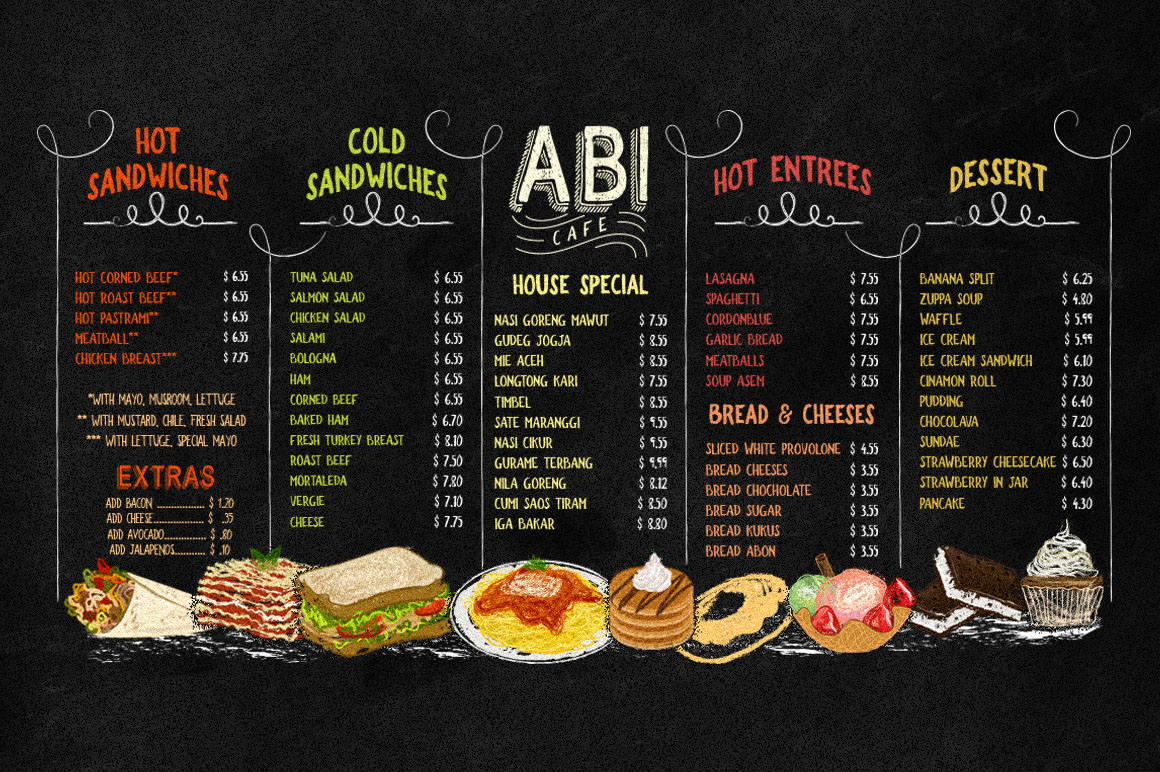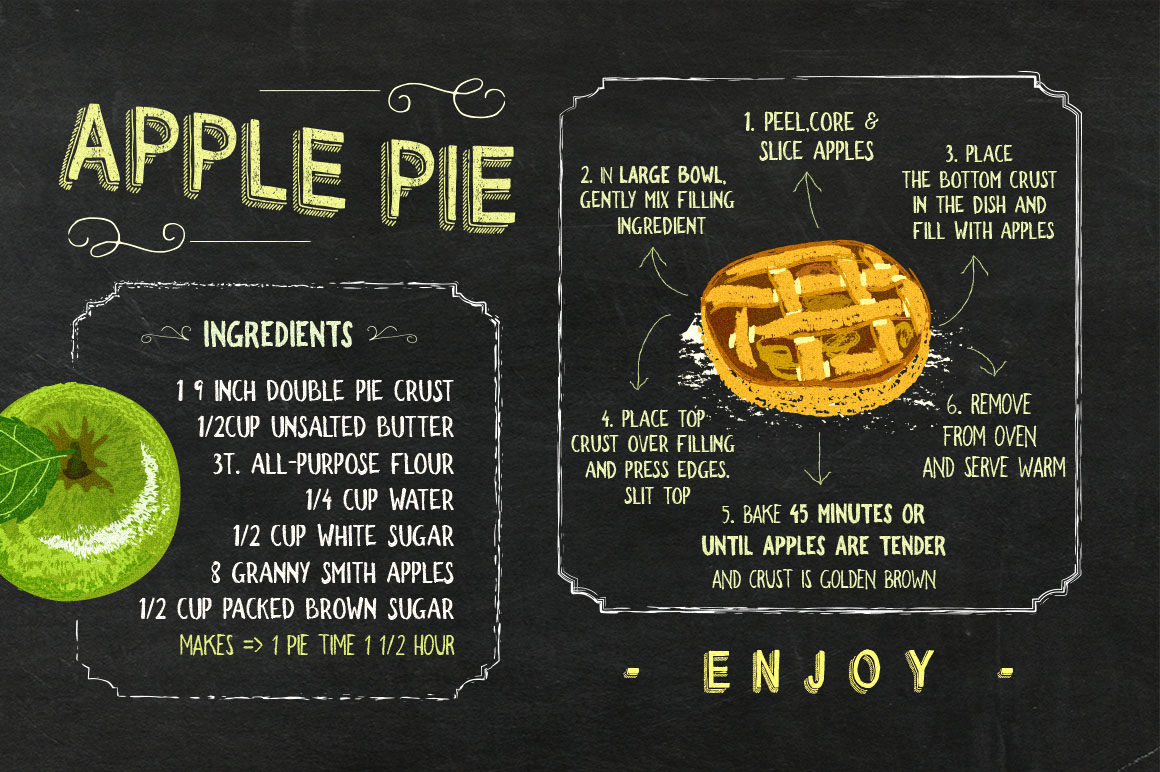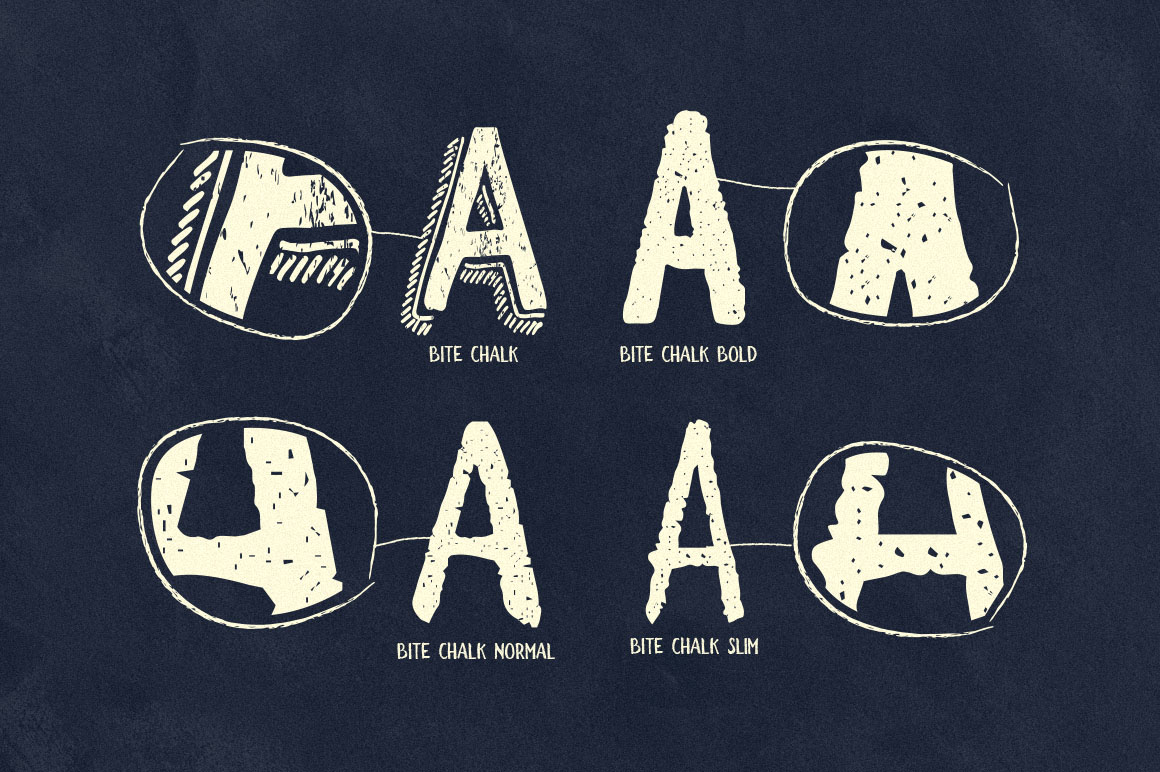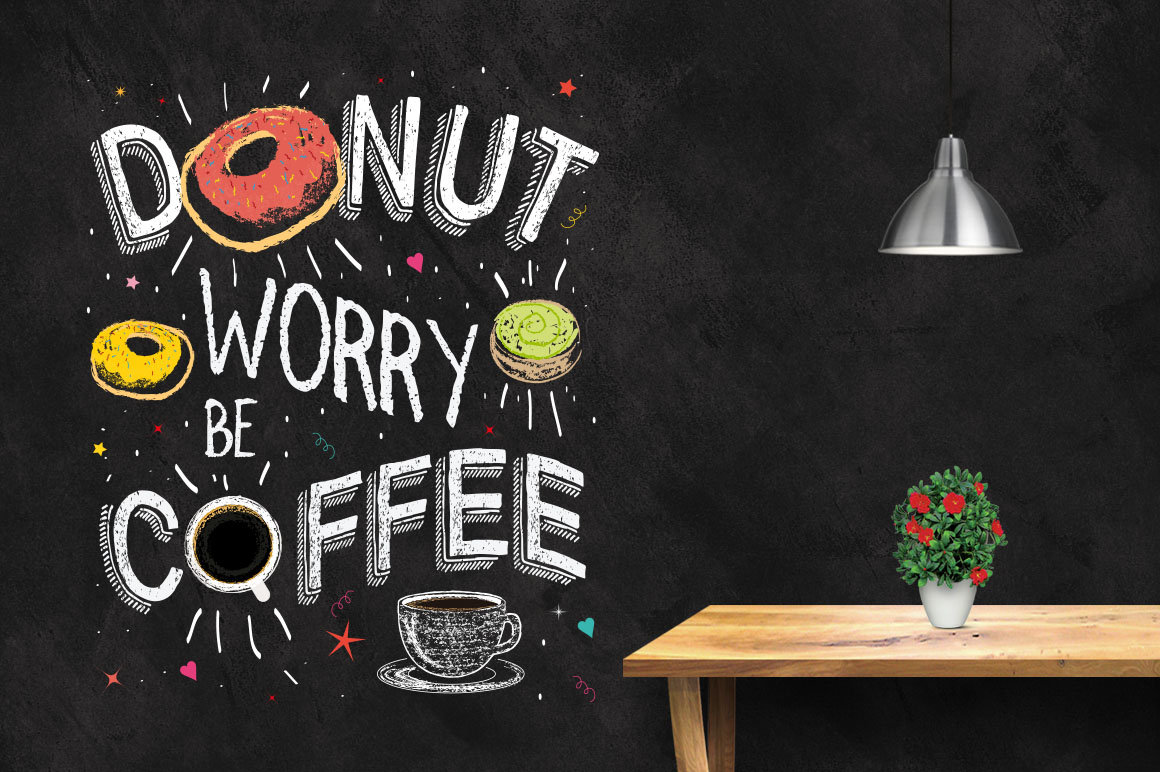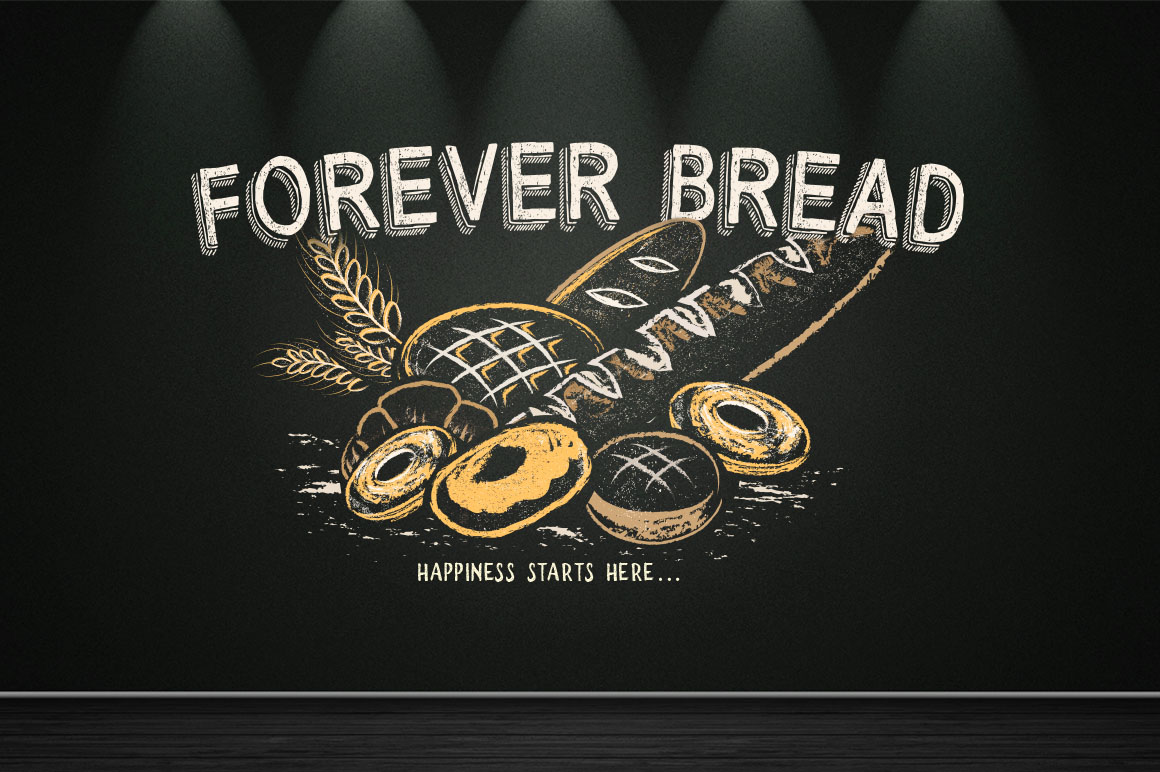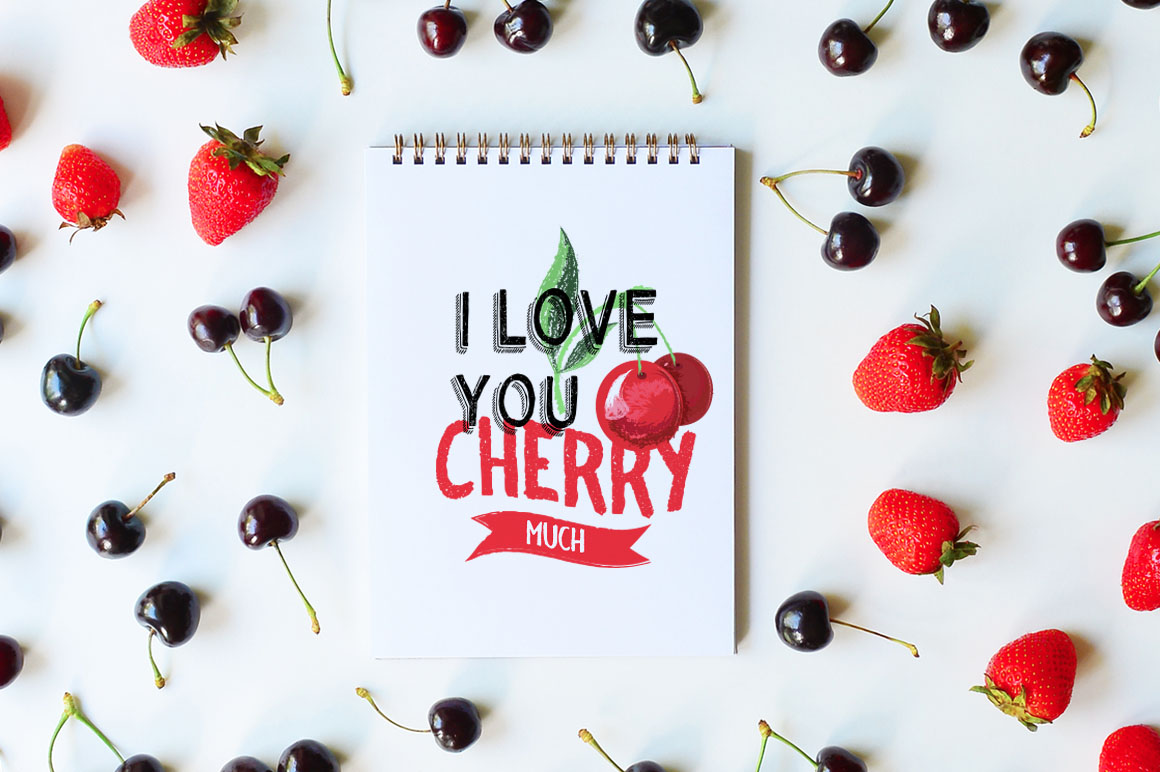
The BiteChalk Font: A Game-Changer for Chalk-Inspired Designs
I’ll never forget the time I was working on a project for a client who wanted a vintage, chalkboard-style look. I spent hours scouring the internet for the perfect font, but nothing seemed quite right. That was until I stumbled upon the BiteChalk font. It was like a breath of fresh air – the textured, chalk-like quality was exactly what I needed to bring my design to life. In this article, I’ll share my experience with BiteChalk, including what I love about it, some potential quirks, and how to get the most out of this amazing font.
An Honest Review of BiteChalk
• ✨ Textured, chalk-like quality: BiteChalk has a unique, textured look that gives it a really authentic feel.
• ✅ Extremely readable: Despite its ornamental style, BiteChalk is surprisingly easy to read, even at smaller sizes.
• 💡 OpenType features: BiteChalk comes with a range of OpenType features, including stylistic alternates and glyphs, which can add an extra layer of creativity to your designs.
While BiteChalk is an amazing font, there are a few things to keep in mind. For example, ⚠️ it can be a bit heavy on the file size, which may be a concern if you’re working on a project with strict file size limits. Additionally, 🤔 some users may find the texture a bit too rough for their taste. However, I believe these quirks are minor and can be easily worked around.
The Backstory Behind BiteChalk
BiteChalk was designed by a team of creatives who wanted to capture the essence of traditional chalkboard lettering. The font’s textured, chalk-like quality is meant to evoke the feeling of writing on a chalkboard, with all its imperfections and quirks. Whether you’re a designer, crafter, or creative hobbyist, BiteChalk is a great choice for any project that needs a touch of authenticity and style.
Q: What is BiteChalk?
A: BiteChalk is a display font with a textured, chalk-like quality that’s perfect for creating authentic, chalk-inspired designs.
Q: Is BiteChalk easy to read?
A: Yes, despite its ornamental style, BiteChalk is surprisingly easy to read, even at smaller sizes.
Q: Does BiteChalk come with OpenType features?
A: Yes, BiteChalk comes with a range of OpenType features, including stylistic alternates and glyphs, which can add an extra layer of creativity to your designs.